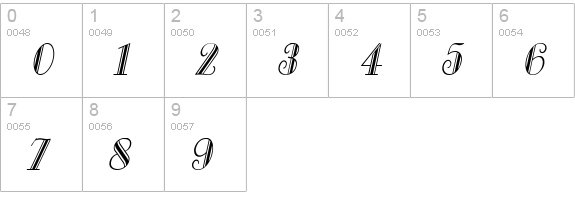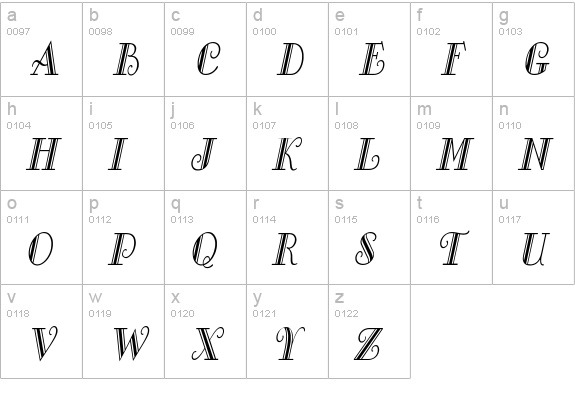
Gallery Condensed Italic is a distinctive, condensed-width, italic variant in the Gallery typeface family \xE2\x80\x94 well suited to design and typography projects.
Gallery Condensed Italic font is a sleek and stylish typeface that exudes elegance and sophistication. With its condensed design and italic slant, this font adds a touch of modernity and flair to any project. Perfect for both print and digital media, Gallery Condensed Italic font is versatile and adaptable, making it suitable for a wide range of creative applications. Whether you're designing a logo, creating a poster, or crafting a website, this font will elevate your design with its distinctive personality. The italicized slant of Gallery Condensed Italic font adds a sense of dynamism and movement, making it a standout choice for headlines and subheadings. The condensed nature of the font allows for efficient use of space, making it ideal for designs with limited real estate. One of the best aspects of Gallery Condensed Italic font is that it is freely available to download at FontsMarket.com. This means that you can access this stunning typeface without any cost, making it a valuable resource for both professional designers and enthusiasts alike. Whether you're a student, a freelancer, or a small business owner, Gallery Condensed Italic font offers a high-quality design solution without breaking the bank. So, why wait? Enhance your designs today with the captivating and freely available Gallery Condensed Italic font. Download it now from FontsMarket.com and let your creativity soar.